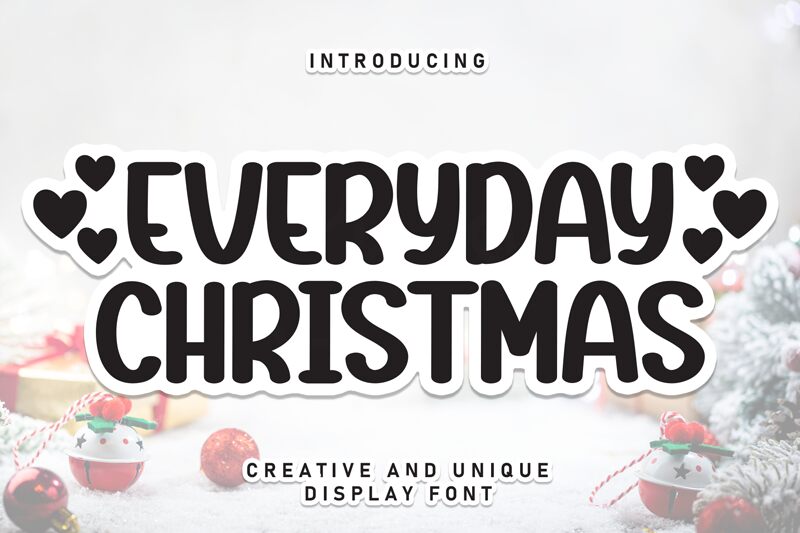
Everyday Christmas
Everyday Christmas font is another brilliant design project from Andi Moz, a friendly handwritten font that looks joyful like the winter holiday it reminds us of. The font has a round, casual appearance with modern aesthetics and a lively mood. Its bouncy rhythm and playful nature make it the proper choice for your fun projects!